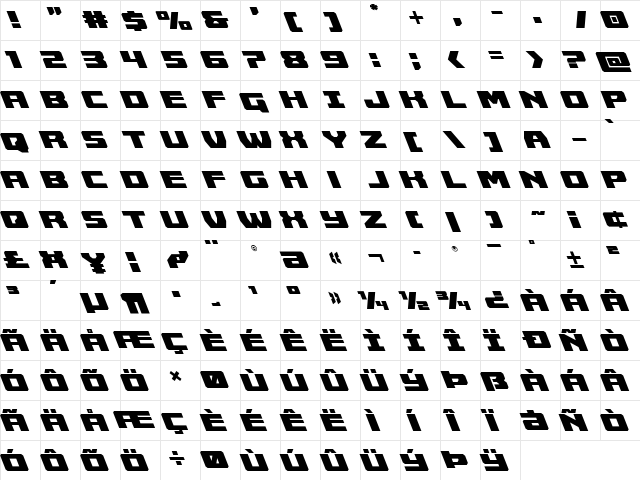
Cruiser Fortress Leftalic Italic
Design Context for Cruiser Fortress Leftalic Typeface
Cruiser Fortress Leftalic is a composed and adaptable typeface that performs quietly and consistently across a wide range of design contexts. Its italic angle brings a sense of urgency and motion to the letterforms.